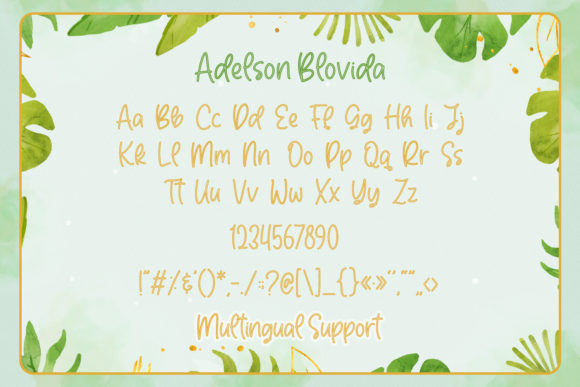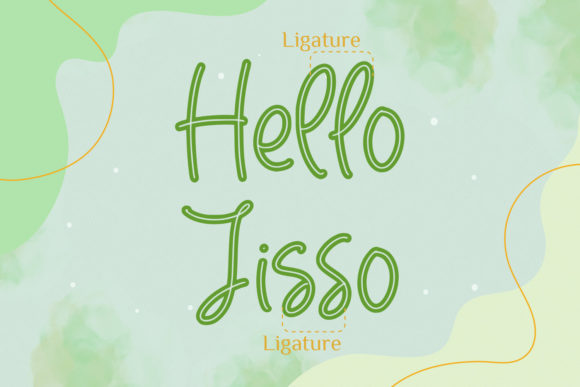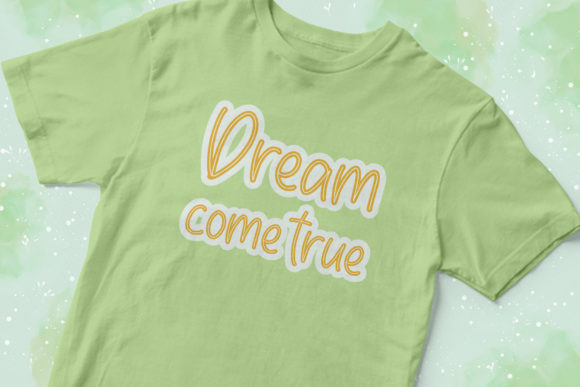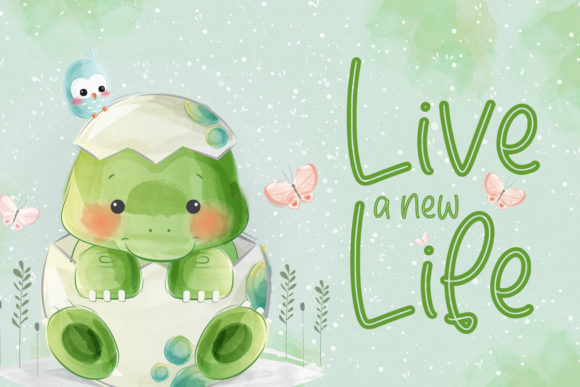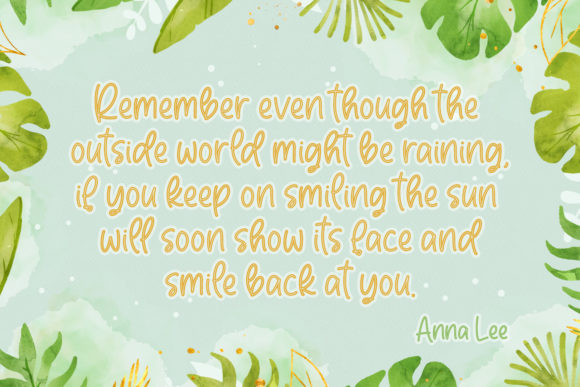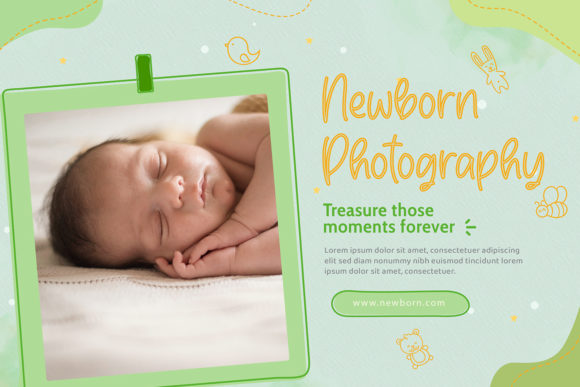
Adelson Belovida Font
About Adelson Belovida Font
Adelson Belovida is a cute playful script font. Smooth and modern, this font will level up each of your design ideas.